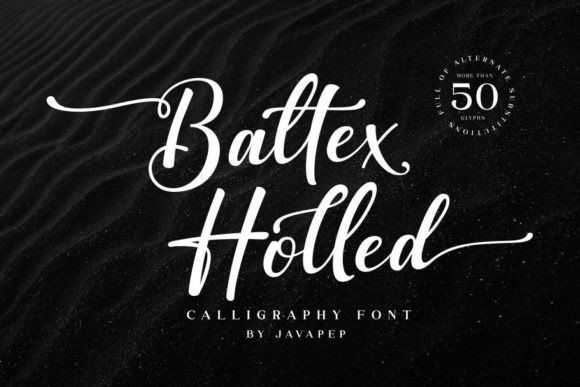
Welcome to the world of Baltex Holled, a breathtaking script font that oozes sophistication and elegance. This calligraphy masterpiece is lovingly crafted by JavaPep, a renowned font designer, to capture the essence of modern and classic aesthetics.
Baltex Holled's enchanting curves and delicate strokes are a visual symphony, beckoning you to explore the realm of creativity. Its timeless beauty transcends traditional boundaries, making it the perfect companion for a myriad of design projects.
Imagine your blog's headlines adorned with Baltex Holled's graceful characters, captivating your readers with a touch of allure and charm. Be it a fashion blog exuding elegance or a travelogue brimming with wanderlust, Baltex Holled elevates your words, transforming them into visual masterpieces that resonate with your audience.
Unleash your creativity and let Baltex Holled's versatility work its magic. Craft logos that exude sophistication, titles that command attention, and headlines that leave a lasting impression. Whether you're designing product packaging that demands attention or crafting a branding identity that speaks volumes, Baltex Holled is your trusted ally.
Elevate your social media presence with Baltex Holled's captivating charm. Create social media posts that sparkle with visual delight, engaging your followers and leaving them yearning for more. Let Baltex Holled's eloquence amplify your message, making your brand shine brighter than ever before.
With Baltex Holled's PUA encoding, accessing its treasure trove of glyphs and swashes is a breeze. Unleash your imagination and explore the boundless possibilities, weaving intricate designs and adding a touch of magic to your creative endeavors.
Join the ranks of design enthusiasts who have embraced Baltex Holled's allure. Make a statement with your designs, captivate your audience, and leave an indelible mark on the world of aesthetics. Embrace Baltex Holled today and unlock a world of design possibilities.